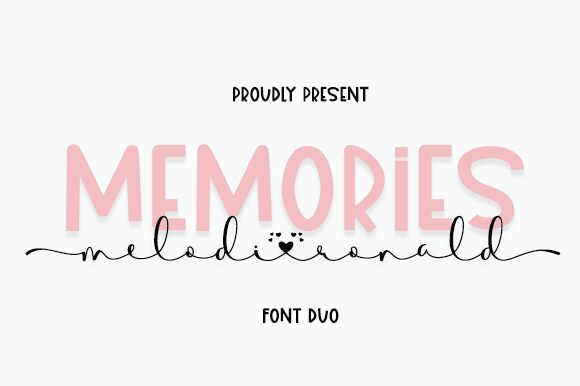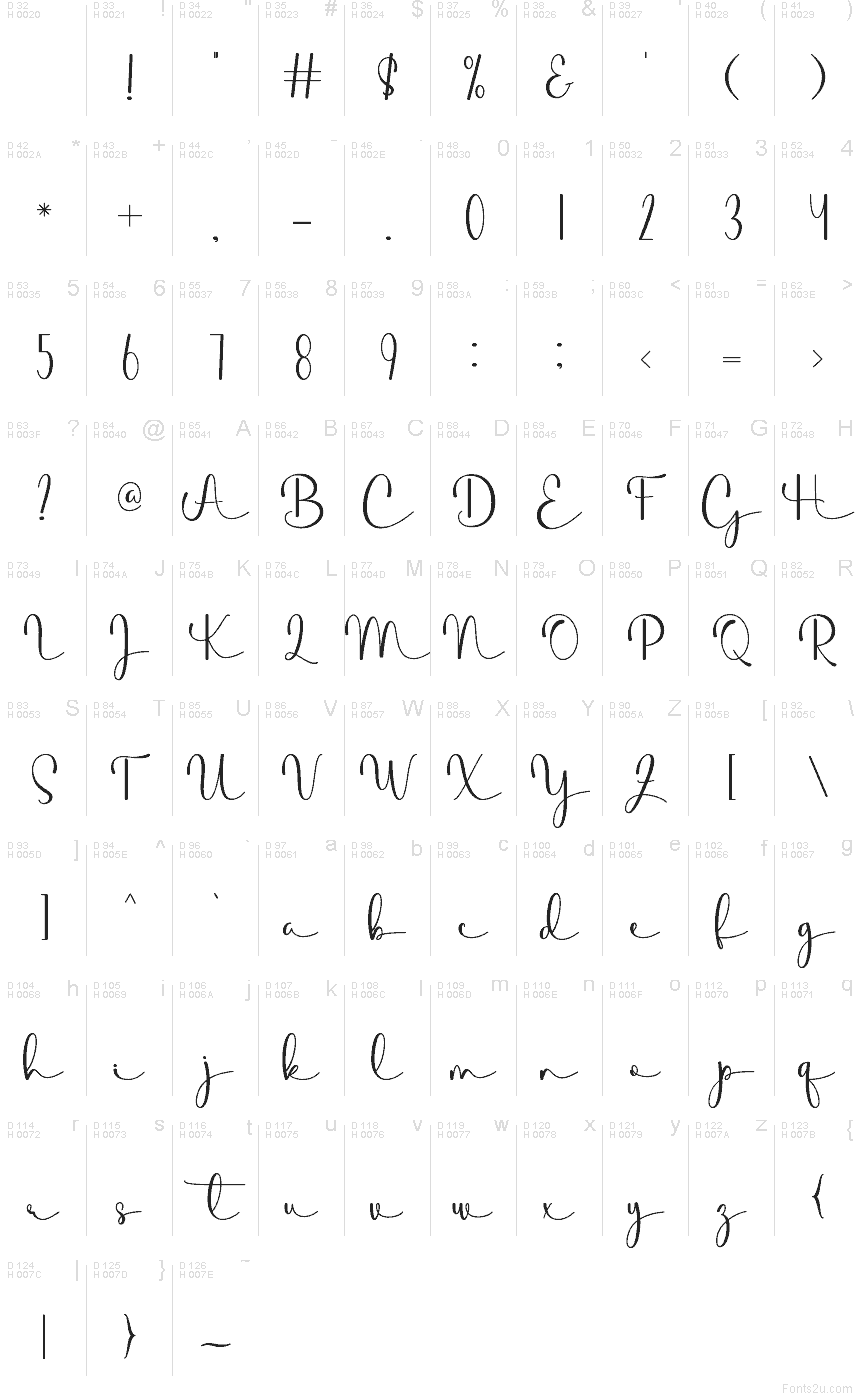
Melodironald font by Danar Nugroho of Jauzadesign is a free calligraphy typeface that captures the feel of a single, effortless pen stroke gliding across smooth paper. Its ultra-fine monoline curves, loose loops, and relaxed rhythm give it a breezy, handwritten charm that feels personal without getting messy. The letters connect in a gentle, continuous flow, so words look like they were written in one confident breath.
Using Melodironald, you can give wedding invitations, save-the-dates, name cards, and love notes a soft, romantic voice that still reads clearly at medium sizes. This free font also works beautifully on feminine logos, product labels, social media quotes, and signature-style branding. Try pairing Melodironald with a clean sans serif for body text and keep it for headings and names, letting its delicate script be the star.